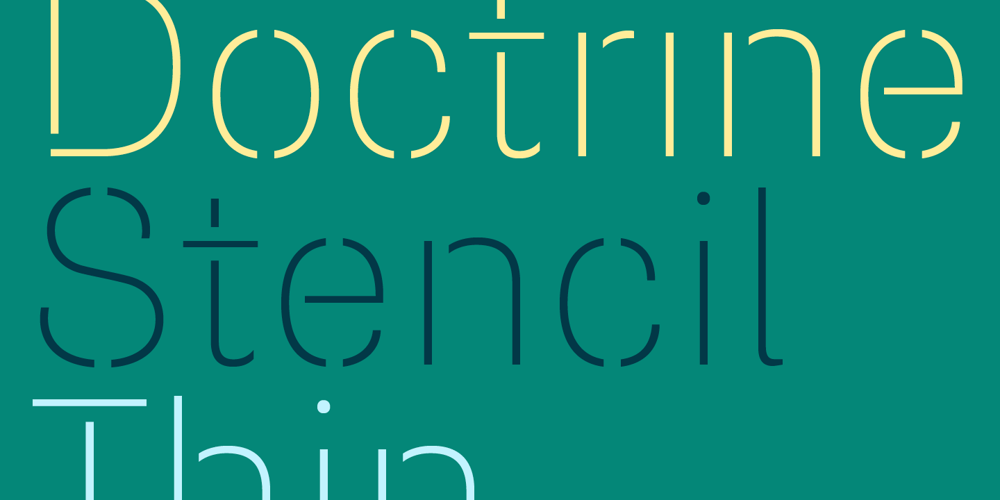
Doctrine Stencil Font Family was designed by Jonathan Barnbrook, Jonathan Abbott, Julián Moncada and published by Barnbrook Fonts. Doctrine Stencil contains 5 styles and family package options. A display typeface with a muscular character, Doctrine Stencil is the revolutionary comrade of the text typeface Doctrine. Doctrine Stencil was developed from the North Korean national airline livery and, while it retains the idiosyncratic spirit of the original, it has evolved into a more contemporary headline face. Doctrine Stencil draws on elements of neo-grotesque, humanist and geometric styles, and combines them with a playful approach to the stencil model. Doctrine Stencil includes four alternate character sets as well as an array of ligatures and figure styles.